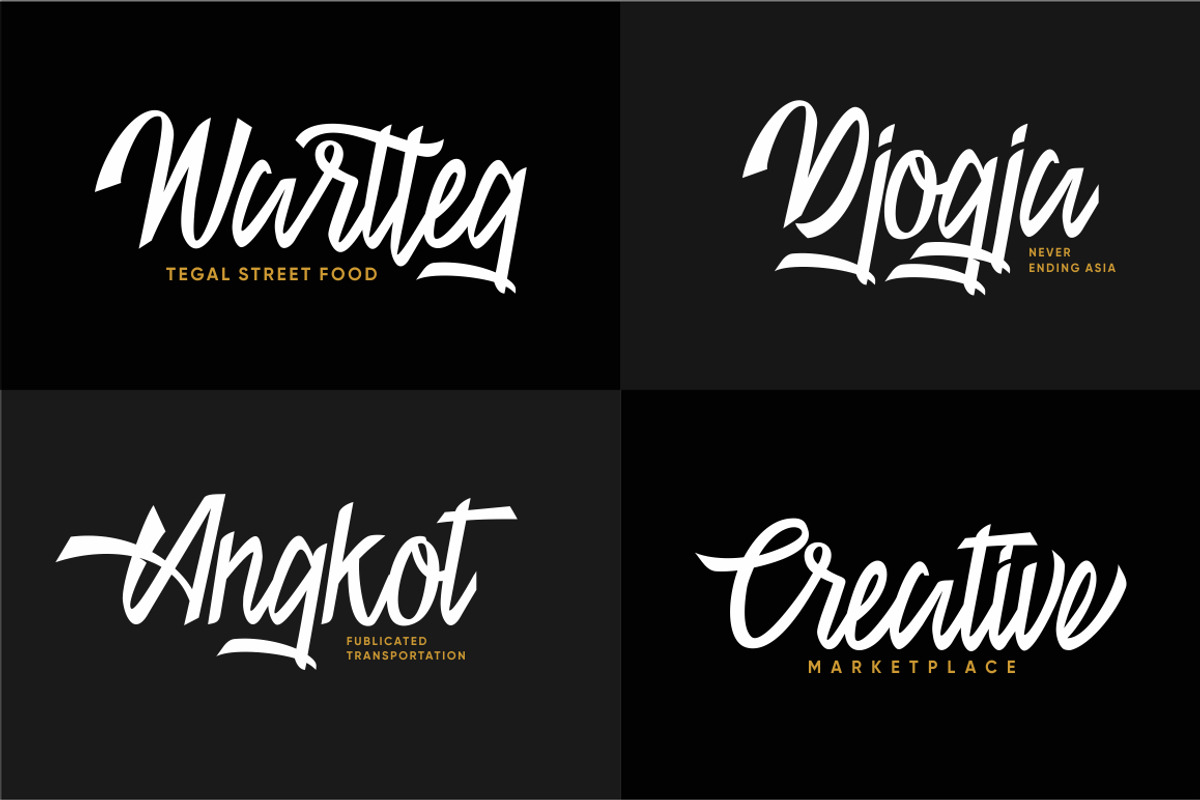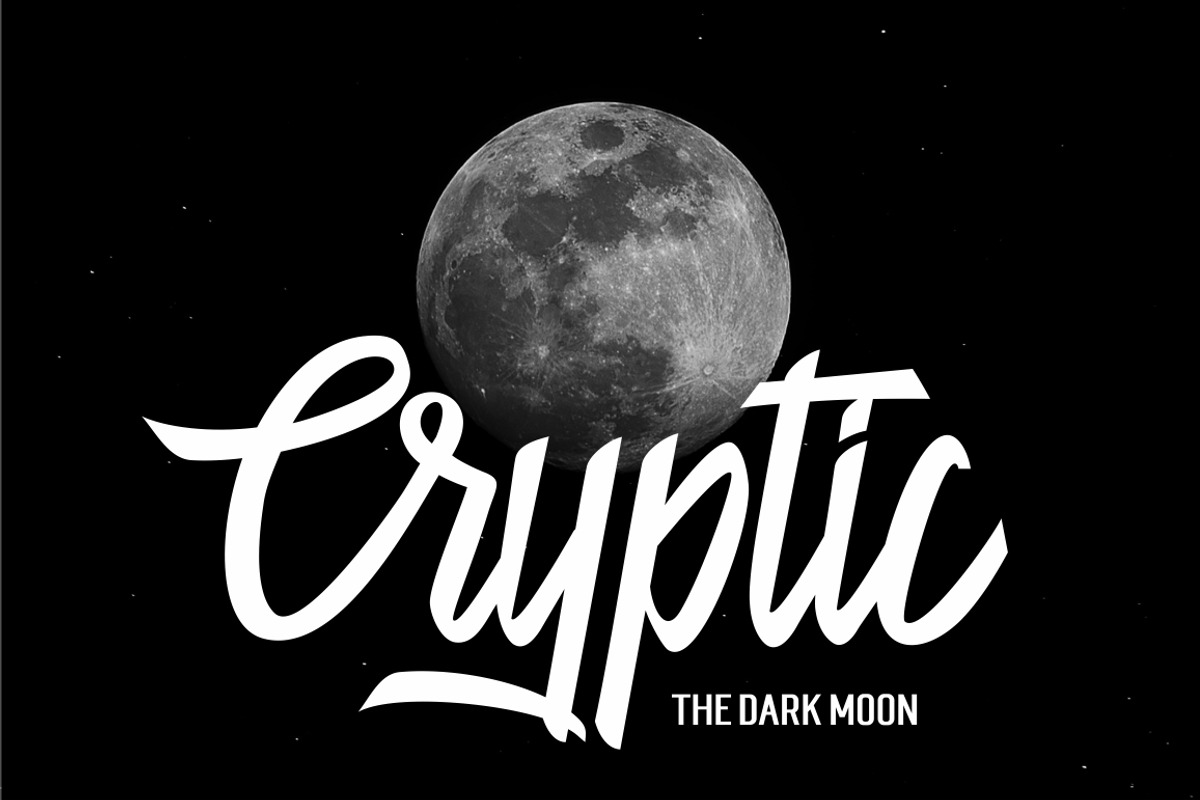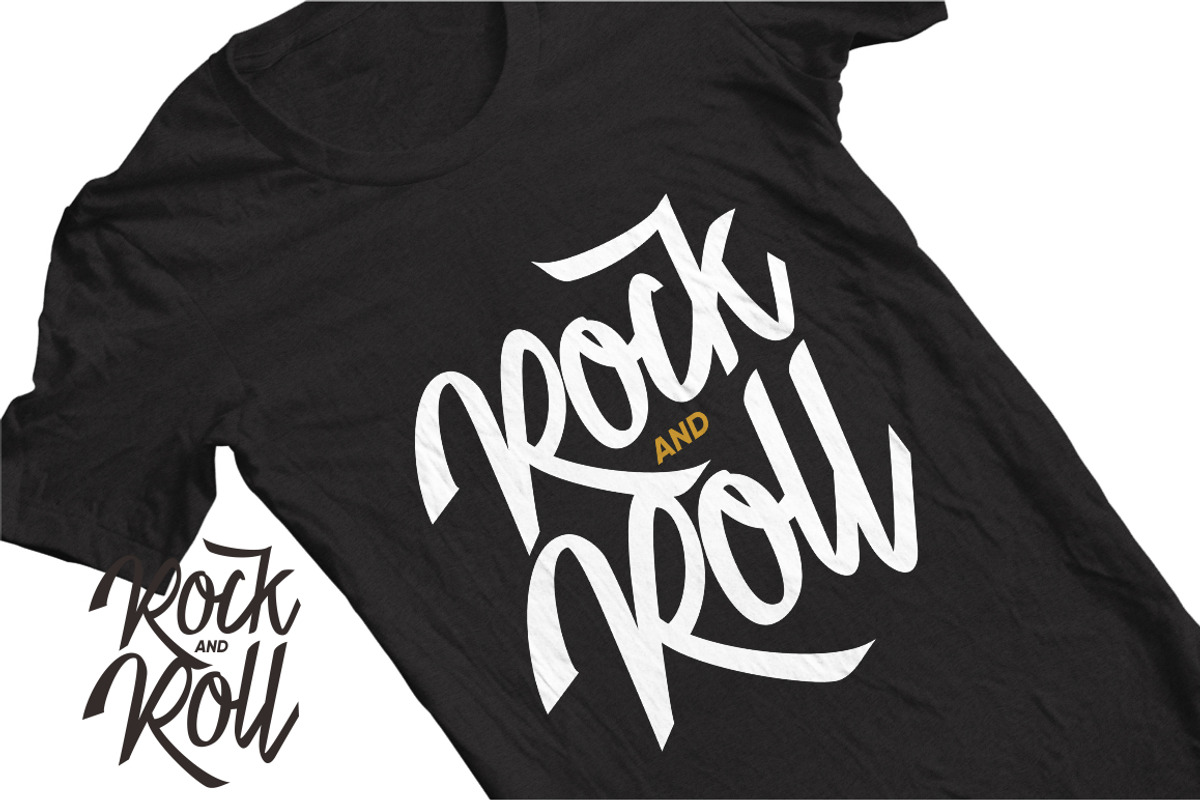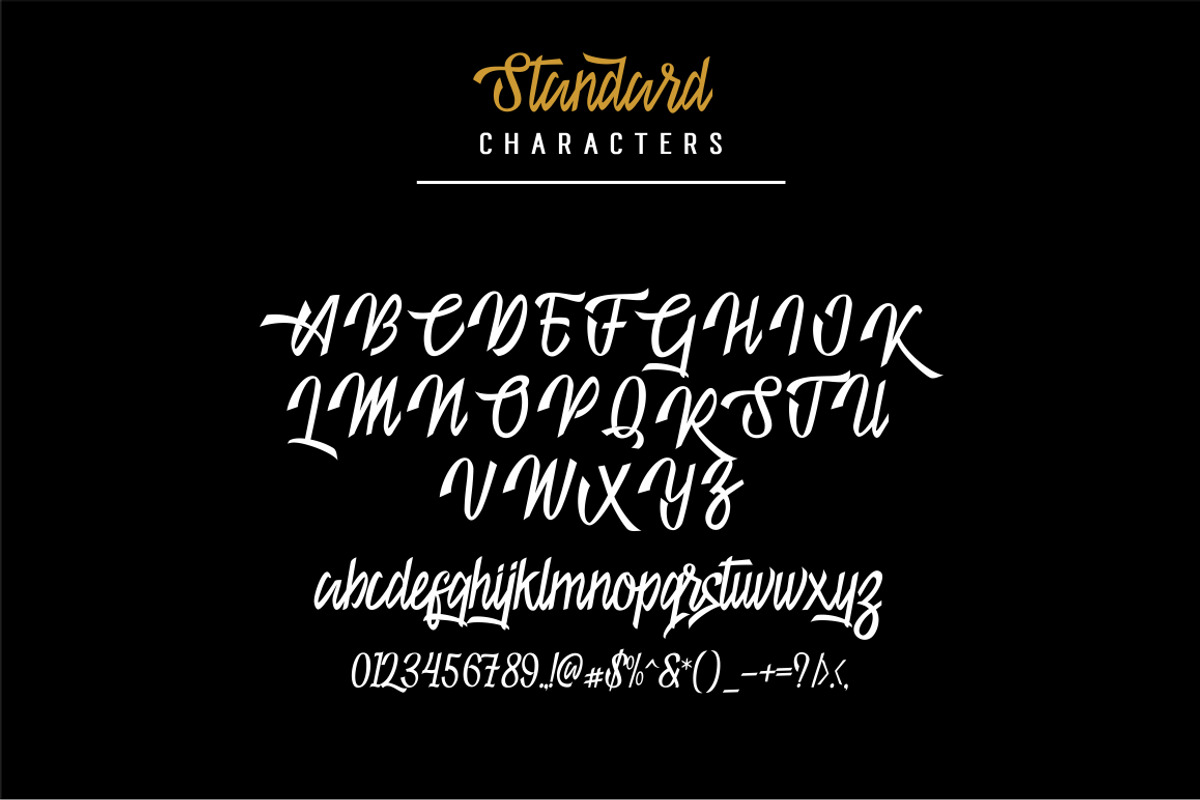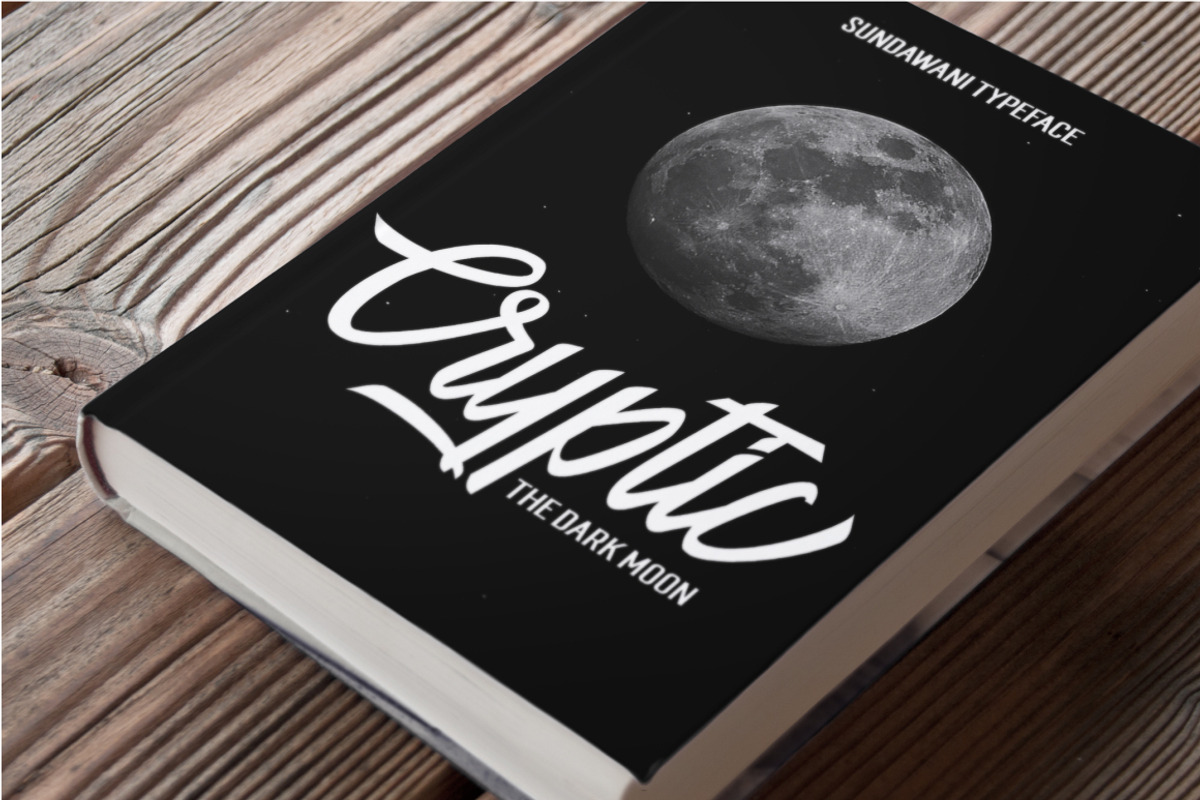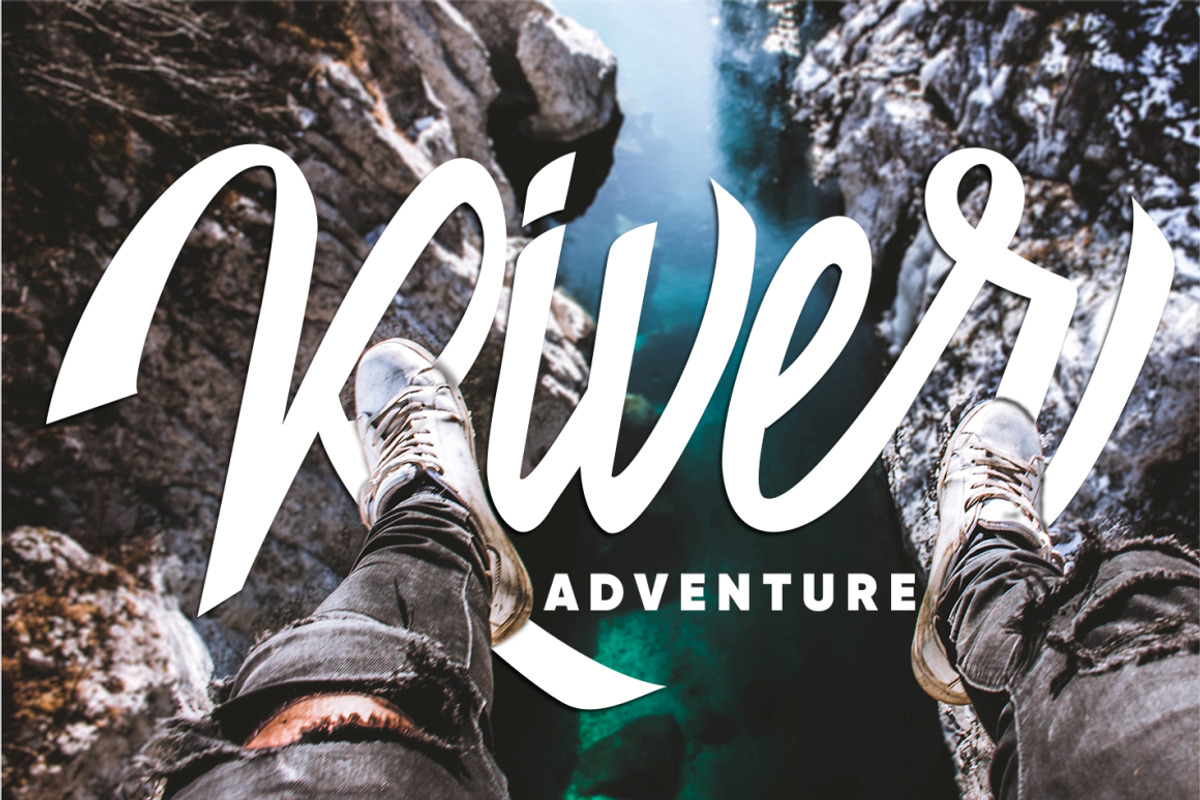
Nightstory modern script font, ghotic and horror fealling, great for logotype, handlattering, t-shirt design, movie poster, etc.
- Nightstory comes with uppercase, lowercase, numerals, punctuation, multilingual characters.